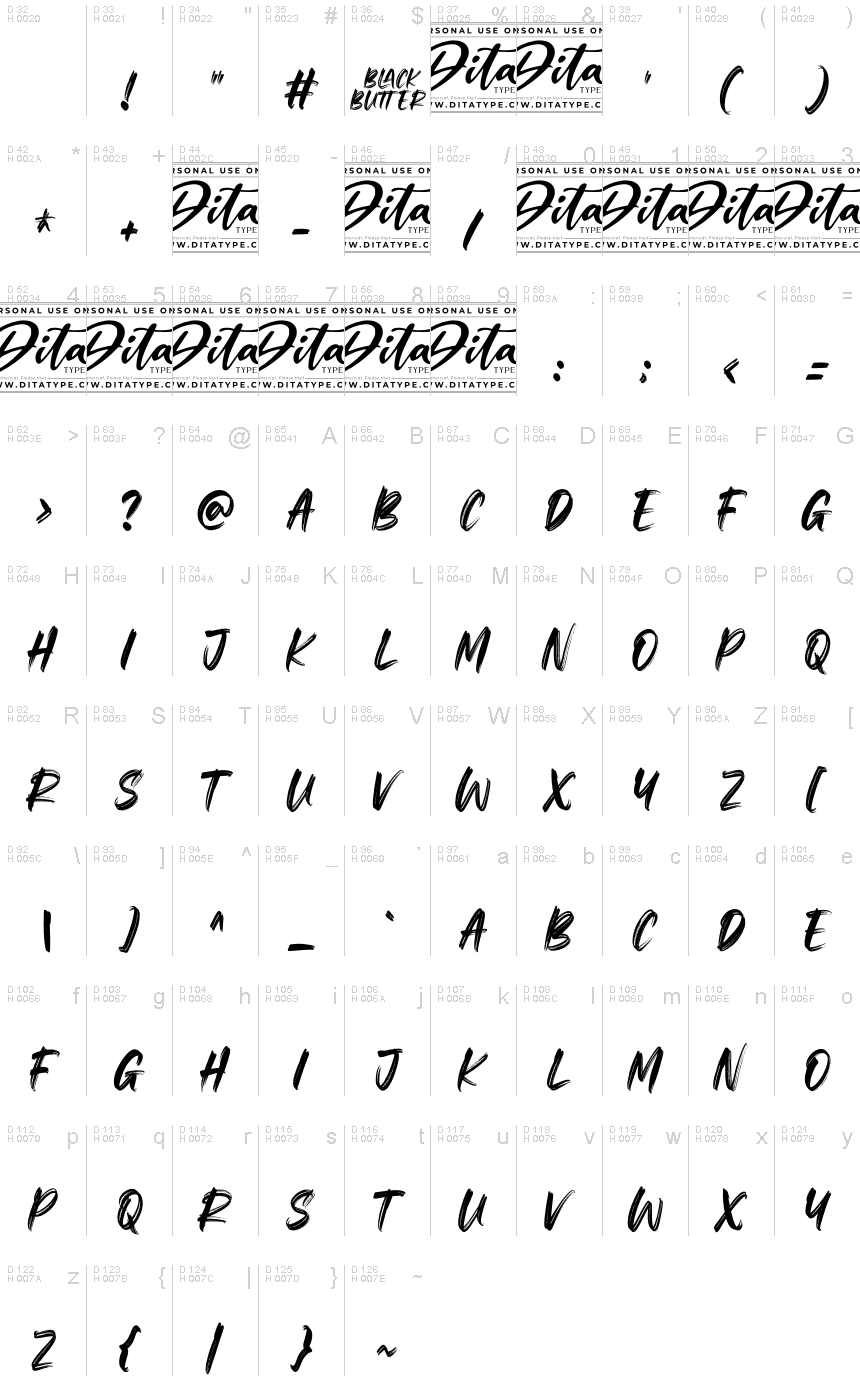
Black Butter Personal Use
Black Butter, crafted by the talented designers at Ditatype, exudes a captivating, hand-painted aesthetic that commands attention. This bold, brush-style font radiates a dynamic energy, seamlessly blending the organic fluidity of a handwritten script with the refined sophistication of a professional typeface. The bold strokes and distinctive character shapes create a visually striking presence, evoking a sense of rugged authenticity and artistic flair.
Black Butter's versatility shines through its ability to seamlessly adapt to a wide range of design applications, from eye-catching headlines and impactful branding to expressive typography in editorial layouts and packaging design. Its strong, confident personality lends itself effortlessly to projects that require a touch of artisanal charm, making it a versatile choice for branding, advertising, and creative content.